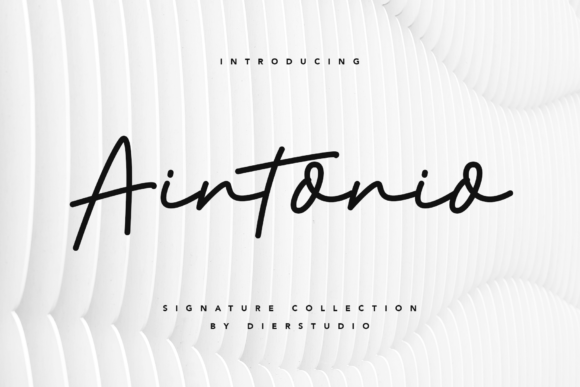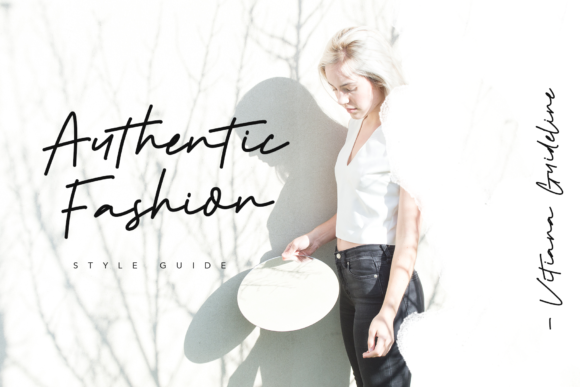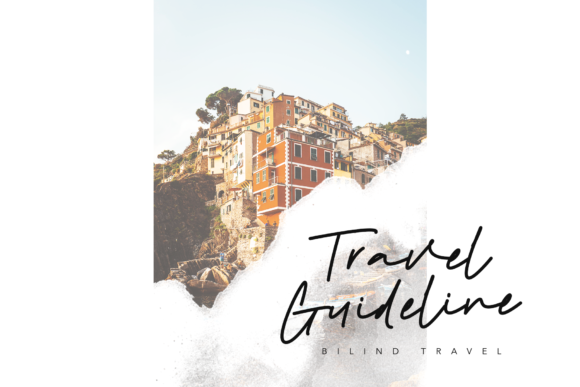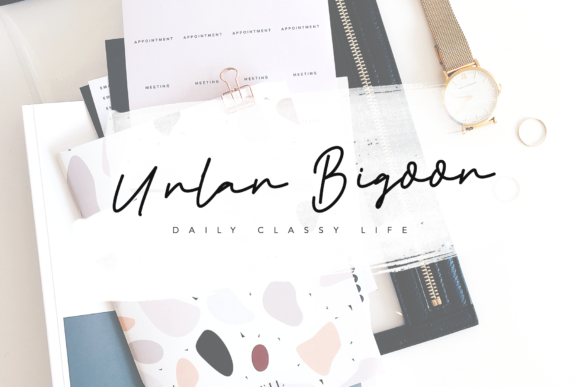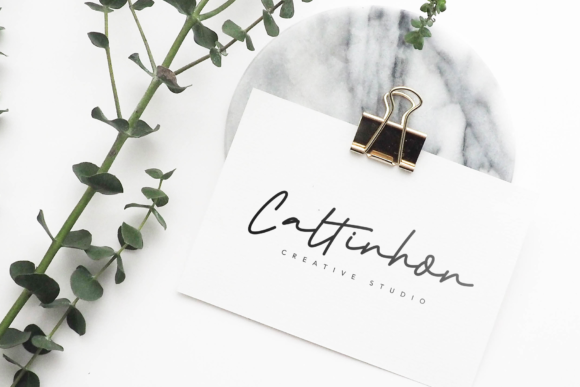
HomeScript FontsAintonio Font Script Fonts Aintonio Font FacebookXPinterestWhatsApp Aintonio Font Poster 2 Aintonio Font Poster 3 Aintonio Font Poster 4 Aintonio Font Poster 5 About Aintonio Font Aintonio is stylish and stunning signature typeface with a distinct personal touch. DOWNLOAD ON CREATIVE FABRICAThis font is sold and delivered by Creative Fabrica. Font Canyon may earn a commission if you buy through this link. People also explored Foodies Font Valentine Times Font Saintham Font Magic Heart Font Carthart Font Shenanigans Font Edhustem Signature Font Handwritten Font Rengganis Argopuro Font 264 0 TagsAintonio Font Previous articleSuch a Cute One FontNext articleWildlove Font LEAVE A REPLY Cancel reply Comment: Please enter your comment! Name:* Please enter your name here Email:* You have entered an incorrect email address! Please enter your email address here Website: Save my name, email, and website in this browser for the next time I comment. Personal Use Free The Fourth Avenue Personal Use Free Read more about this font Hillgates Personal Use Free Read more about this font Child Witch Personal Use Free Read more about this font Dandelions Bloom Personal Use Free Read more about this font BLOG Exploring Font Trends Shaping Communication in the Digital Era Fonts, like all design elements, are subject to trends. They play a crucial role in communicating a brand's personality,... Best Fonts for T-Shirt Design – Top 2025 Picks Free vs Paid Fonts: Why Investing in Premium Fonts Is Worth It Fonts That Capture the Spirit of New York City